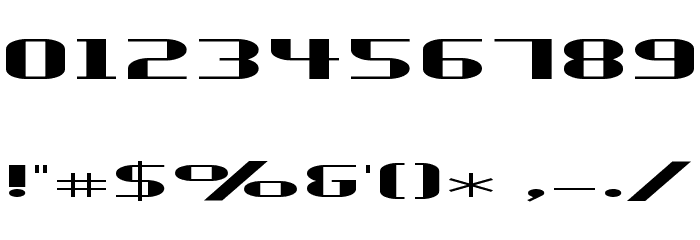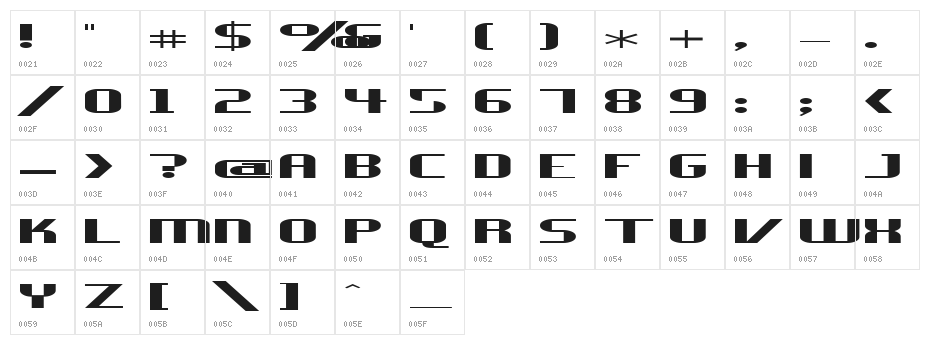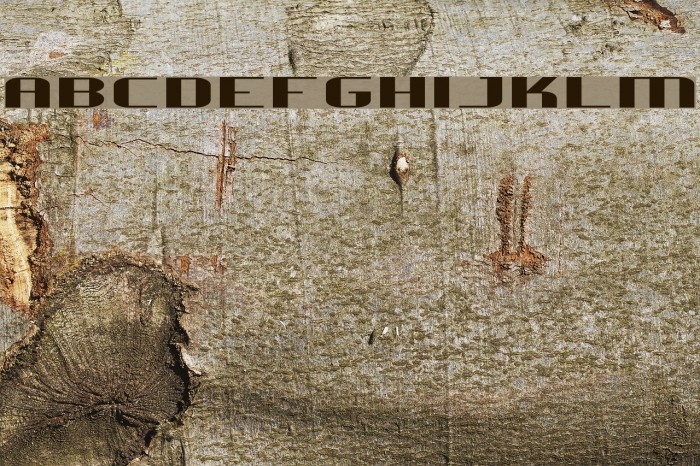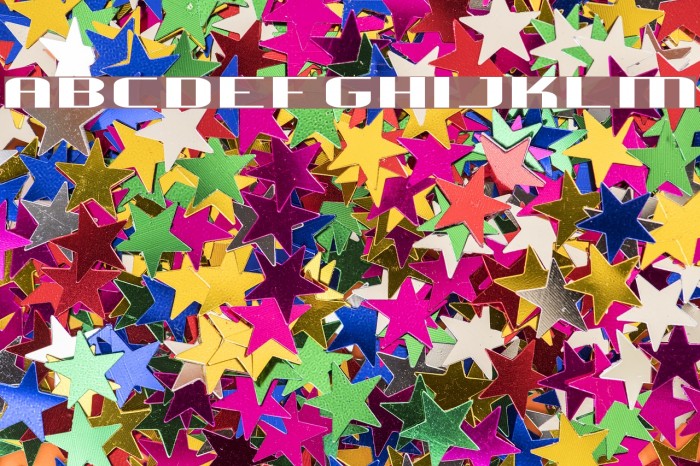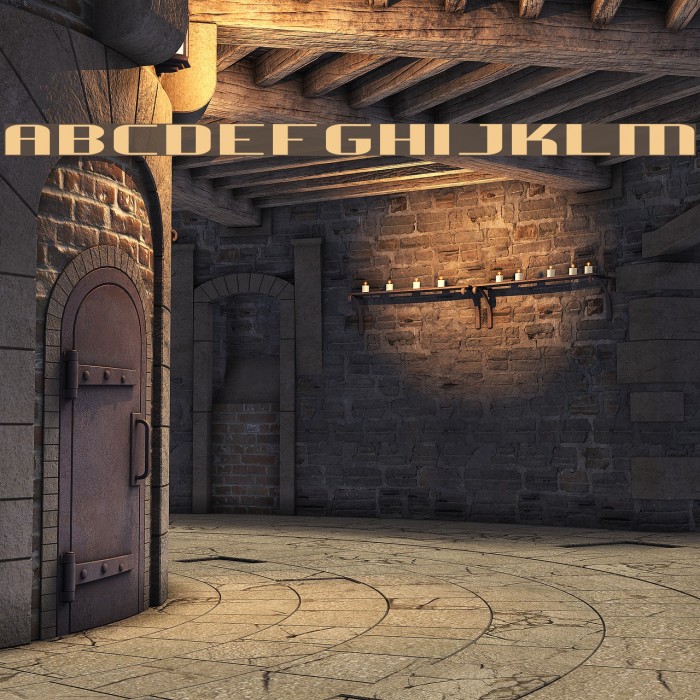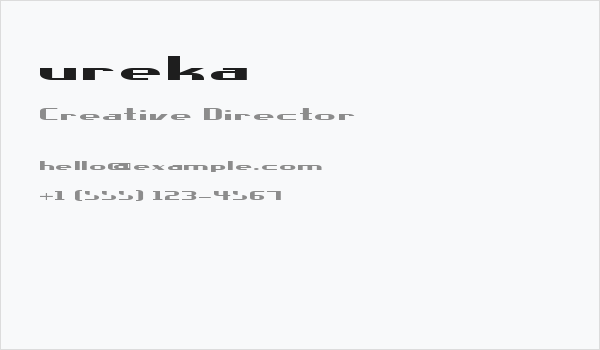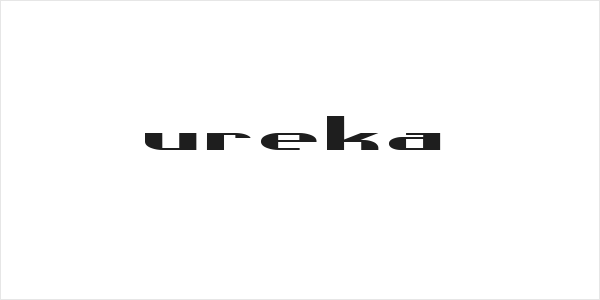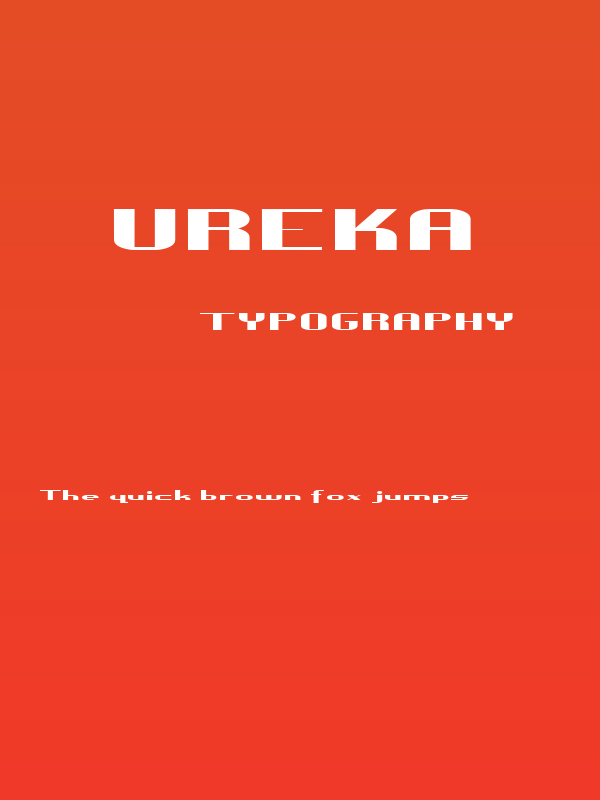
ureka Font
ureka Description
This font features a bold and geometric design with a futuristic flair. The characters are constructed with sharp angles and straight lines, giving it a modern and edgy appearance. The uppercase letters are particularly striking, with a uniform height and width that create a cohesive look. The lowercase letters maintain the same angular style, ensuring consistency across the typeface. Numbers and special characters are designed to match the overall aesthetic, making this font versatile for various applications. Its unique style makes it stand out, ideal for projects that require a strong visual impact.